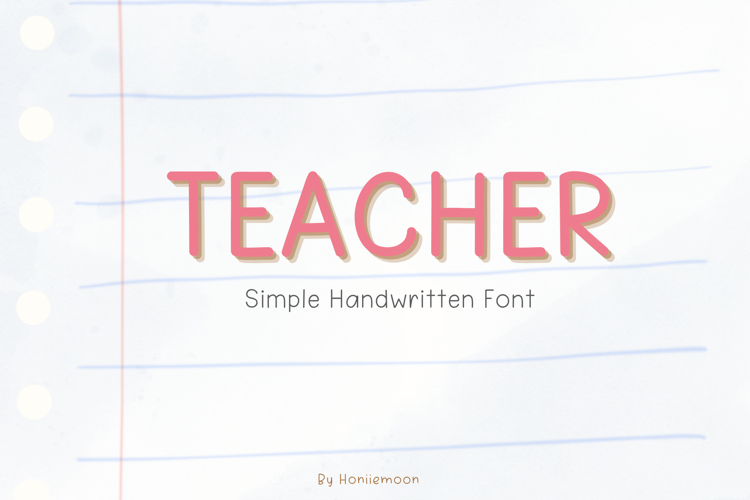
Teacher Font Family is a clean and simple handwritten typeface designed with a soft, natural look that feels like handwriting on notebook paper.
Perfect for teachers, planners, bullet journals, printable worksheets, classroom labels, mugs, and note templates.
This family includes 3 styles – Teacher Regular, Teacher V.2, and Teacher Bold, making it easy to mix and match across various educational or minimal creative projects.
Use it for creating study planners, schedules, journals, greeting cards, posters, product packaging, or classroom decor.